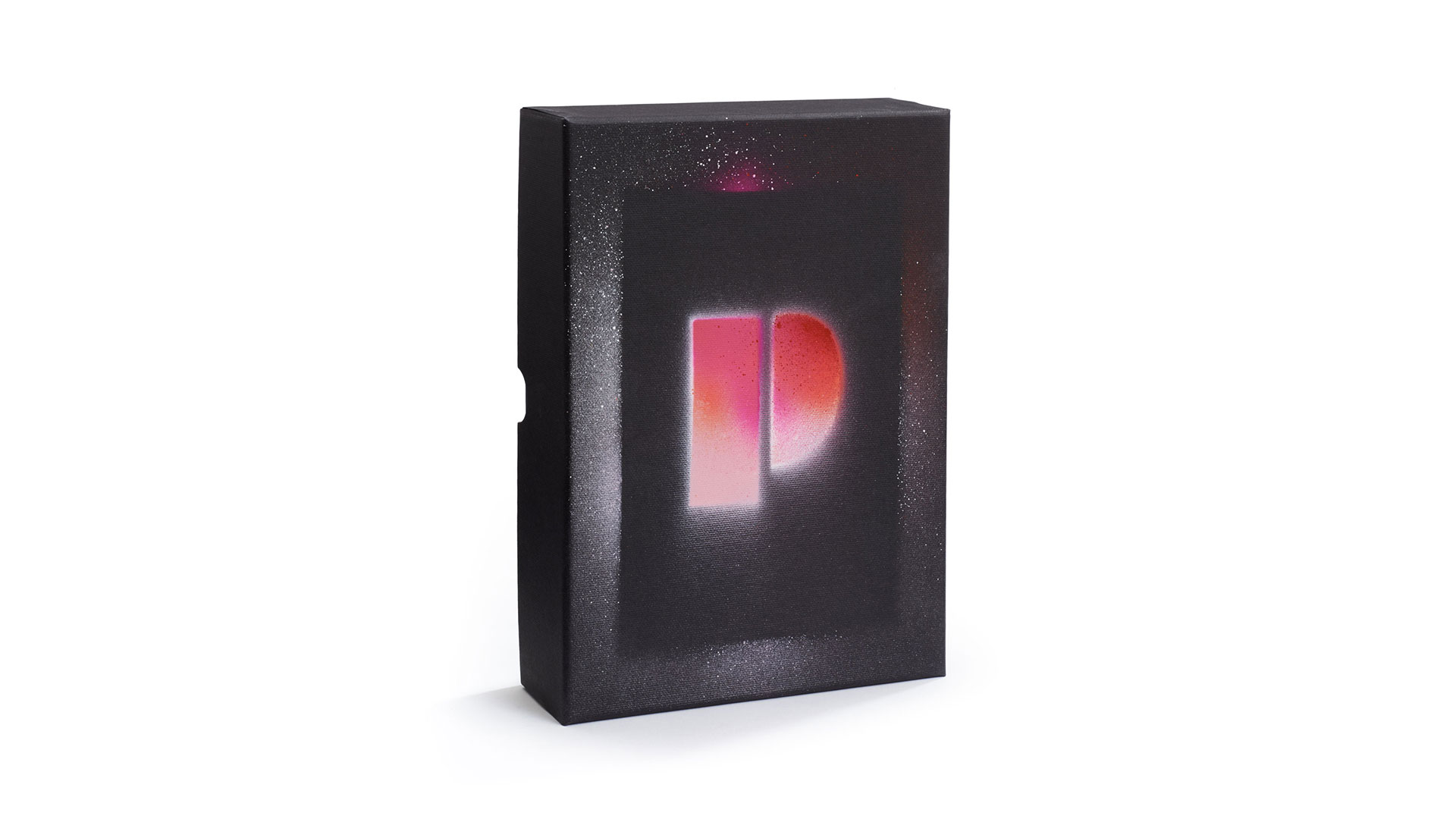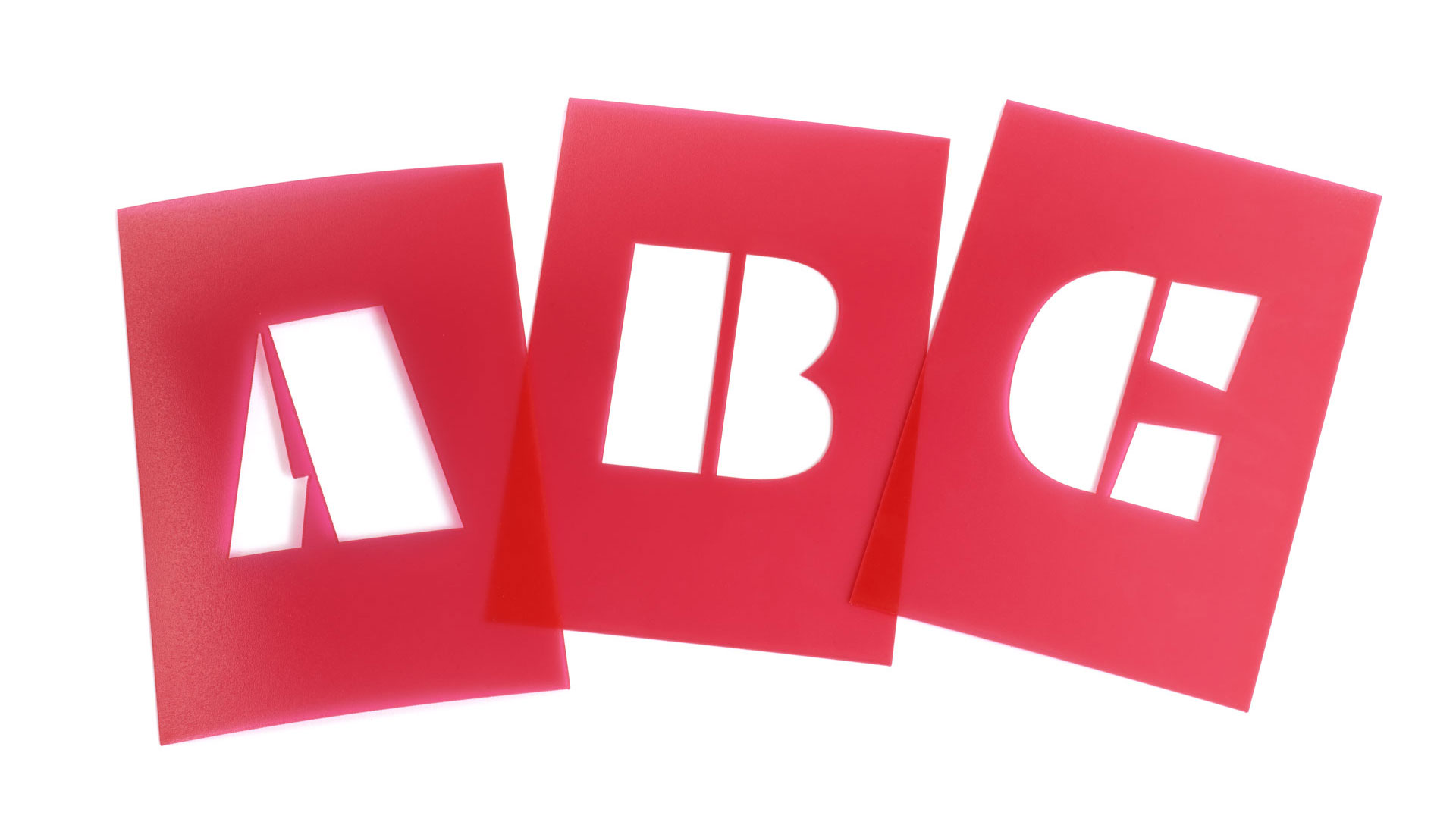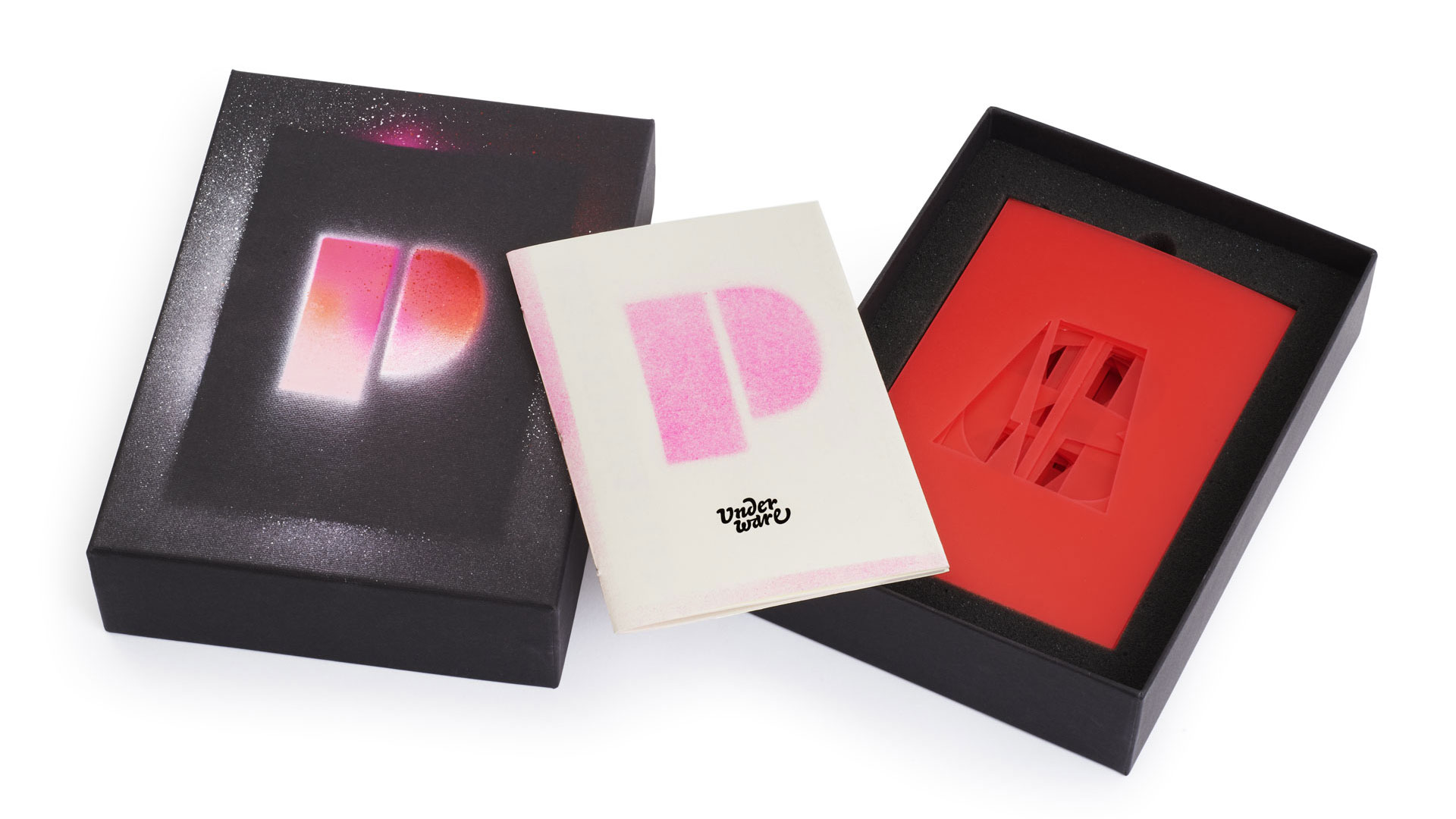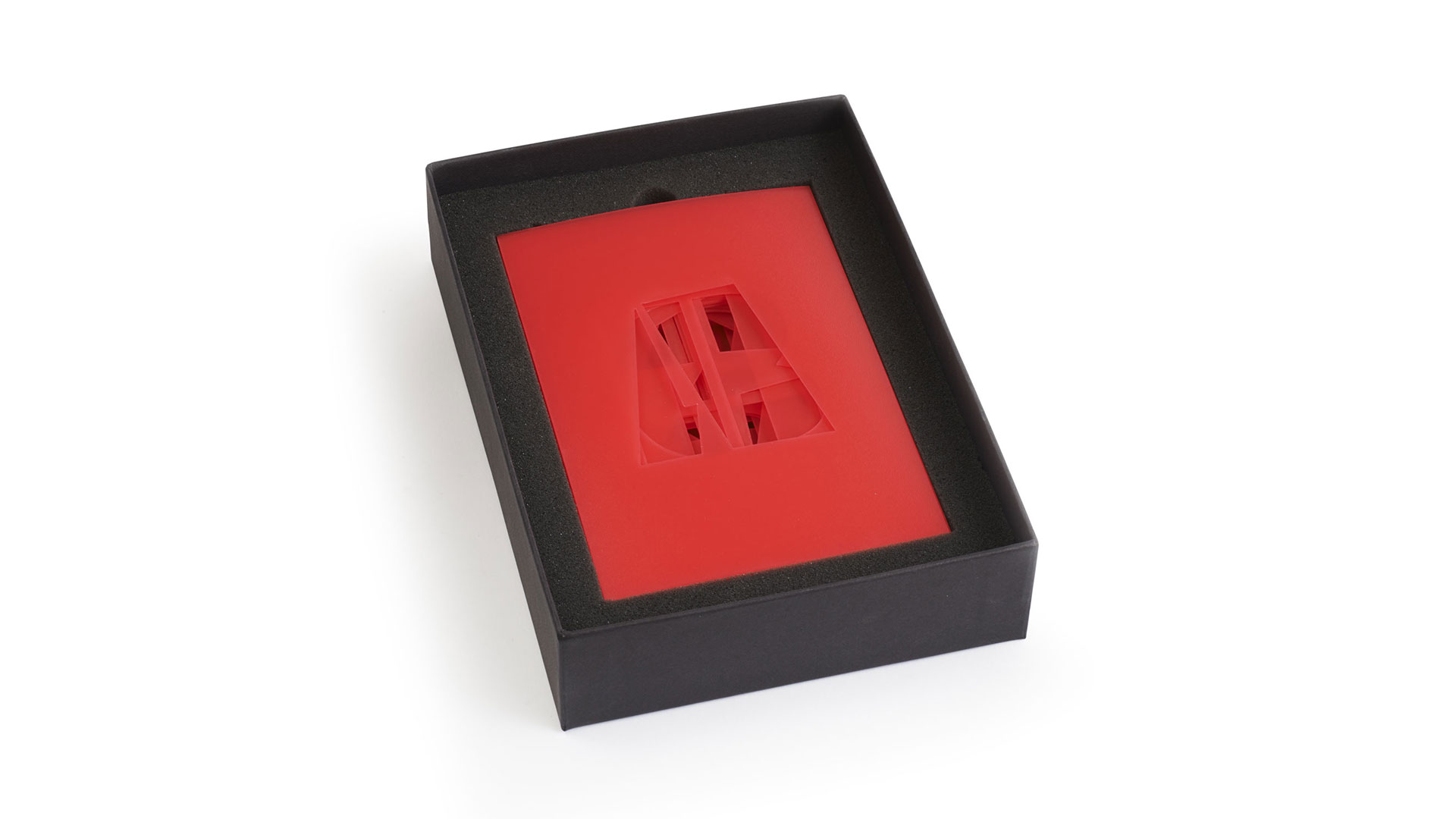
Plakato Stencil Set
It’s time for action! This is the one and only Plakato stencil set. Letters are not meant to be lying on their lazy asses, letters need to be applied actively. This stencil set, existing out of 40 loose stencils, comes in a customized box and is accompanied by a dedicated booklet in Plakato style.
Type specimens are not only objects to marvel at, they are also utensils. So a stencil set can very well be used as a type specimen of a stencil typeface.
letters 40 stencils (A-Z 0-9 & ? ! ↑)
size letter 70 mm